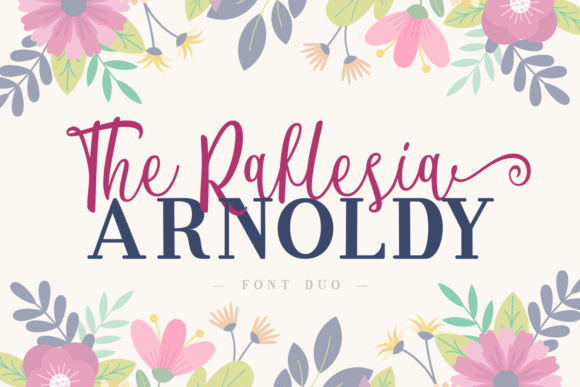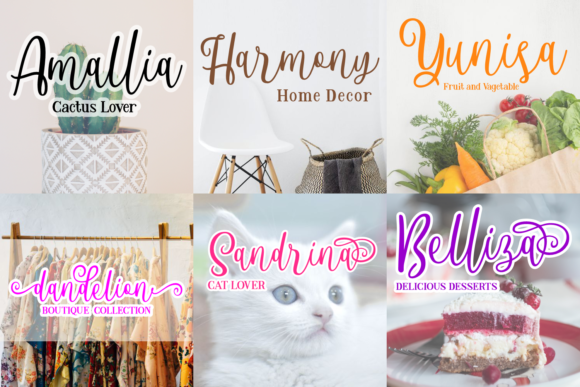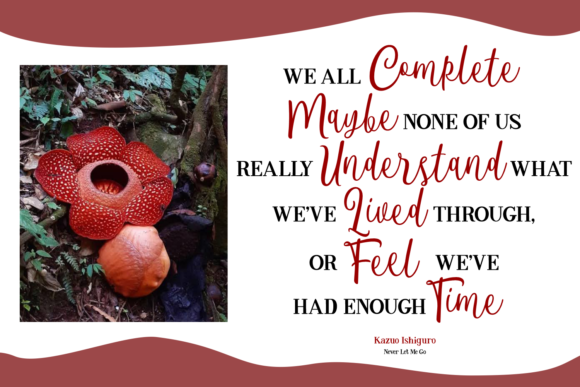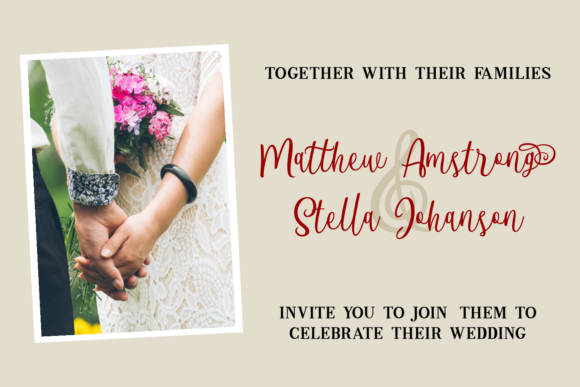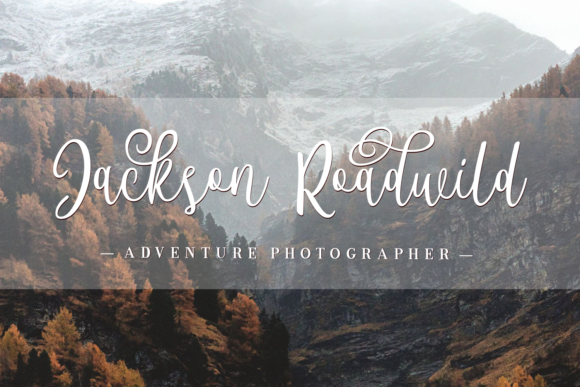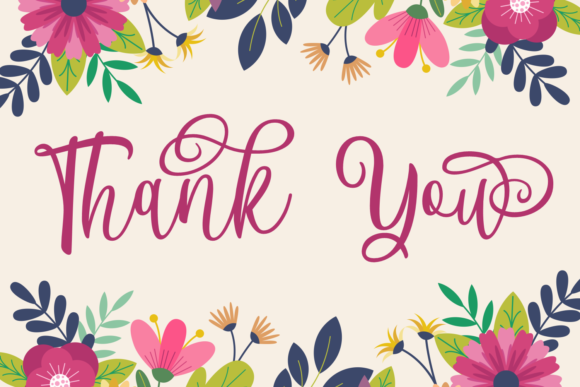
The Raflesia Arnoldy Font
About The Raflesia Arnoldy Font
The Raflesia Arnoldy is a duo font that perfectly matches a modern script with a beautiful serif font. Combining these two fonts on your next design will give a modern and luxurious feel. Fall in love with its authentic feel and use it to create gorgeous wedding invitations, beautiful stationary art, eye-catching social media posts, and cute greeting cards.